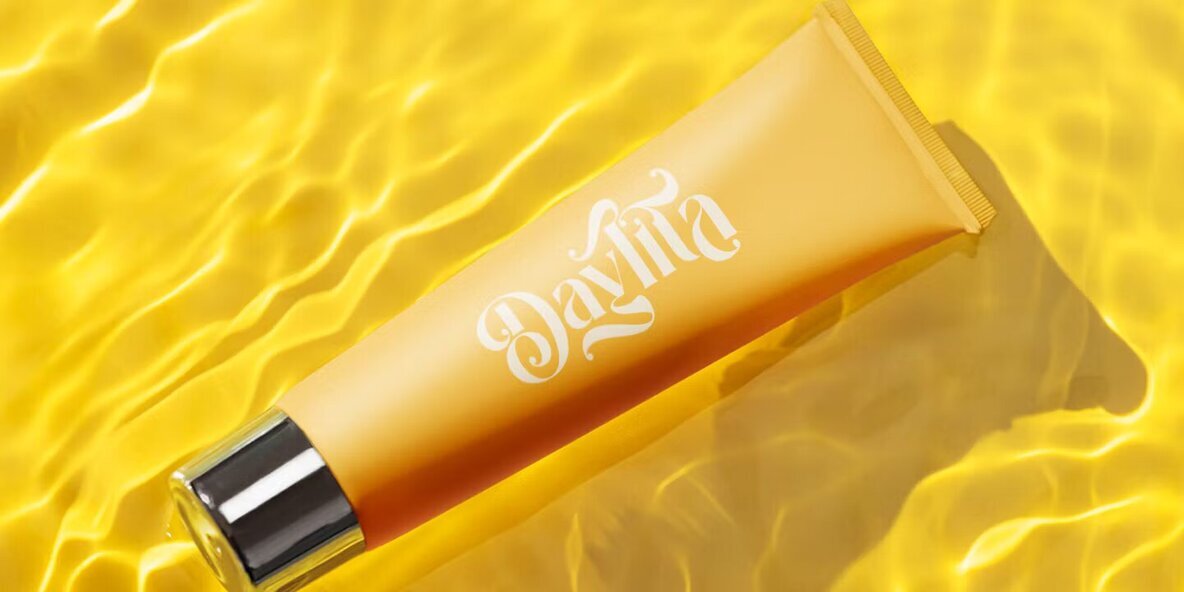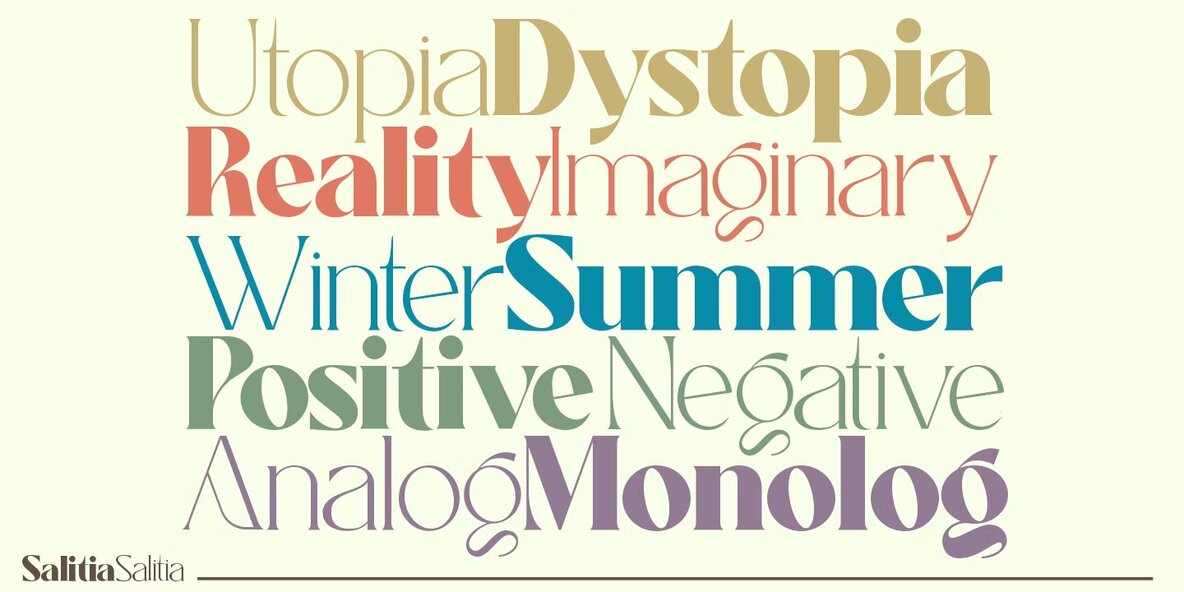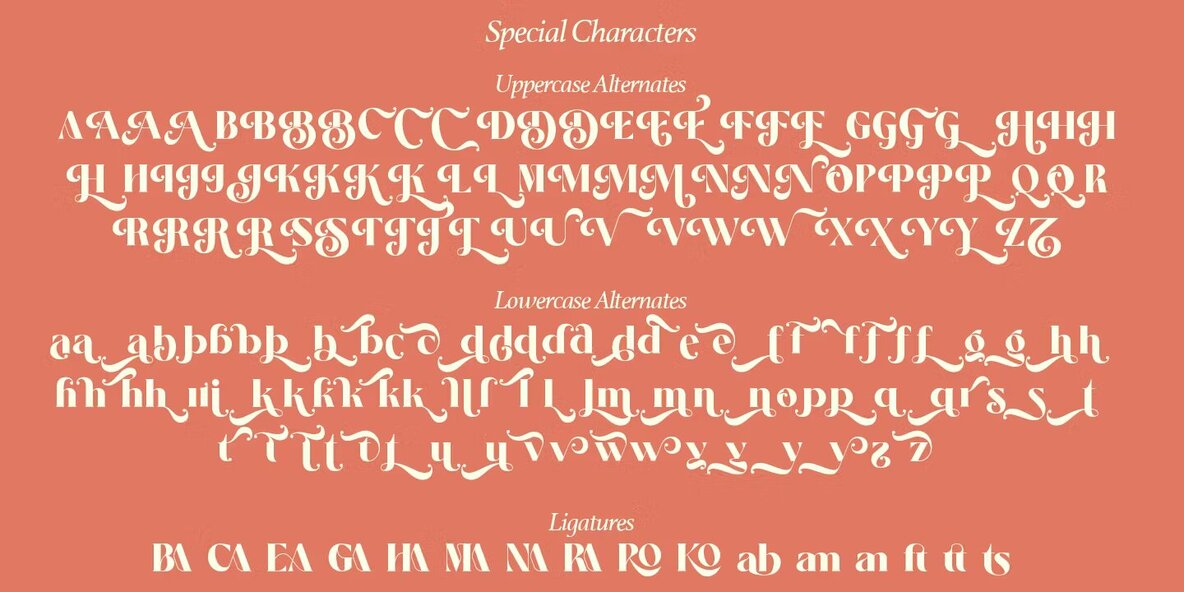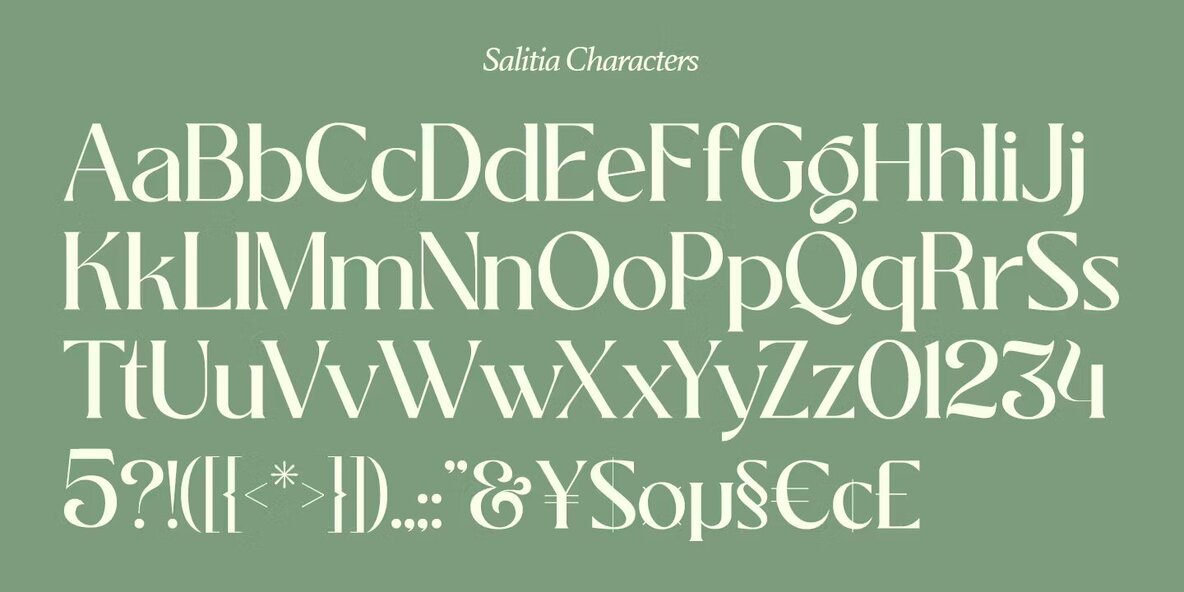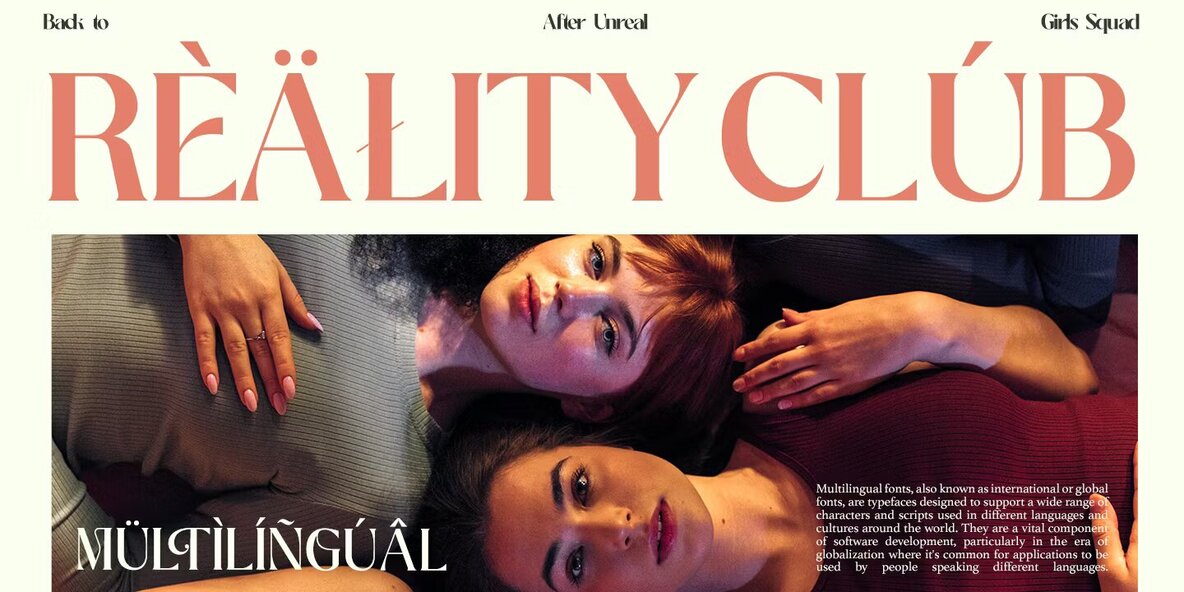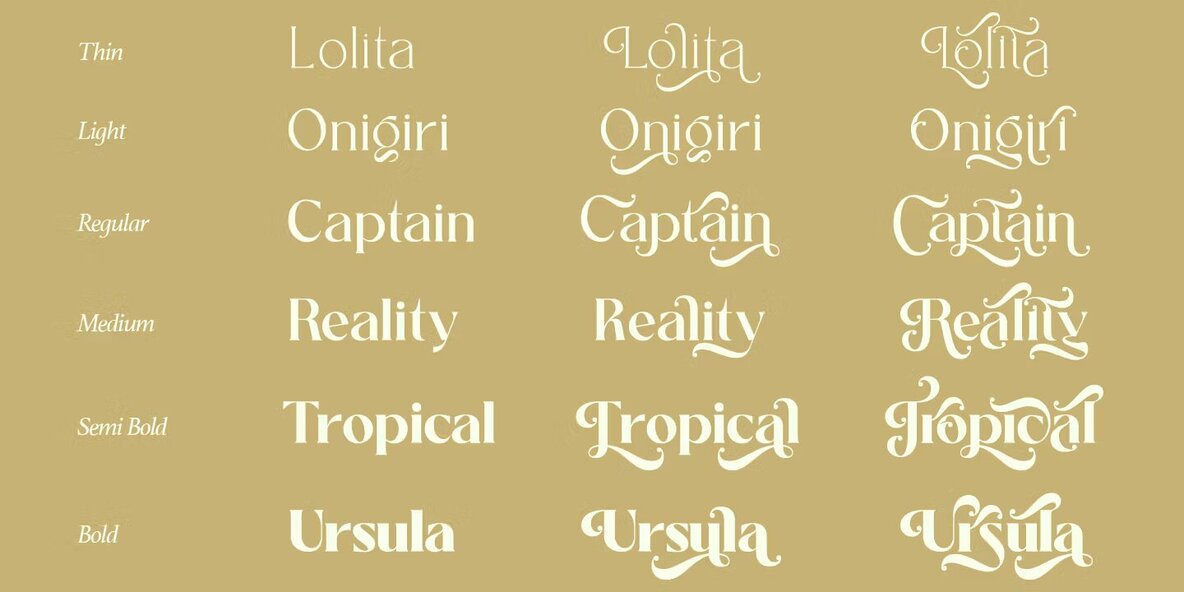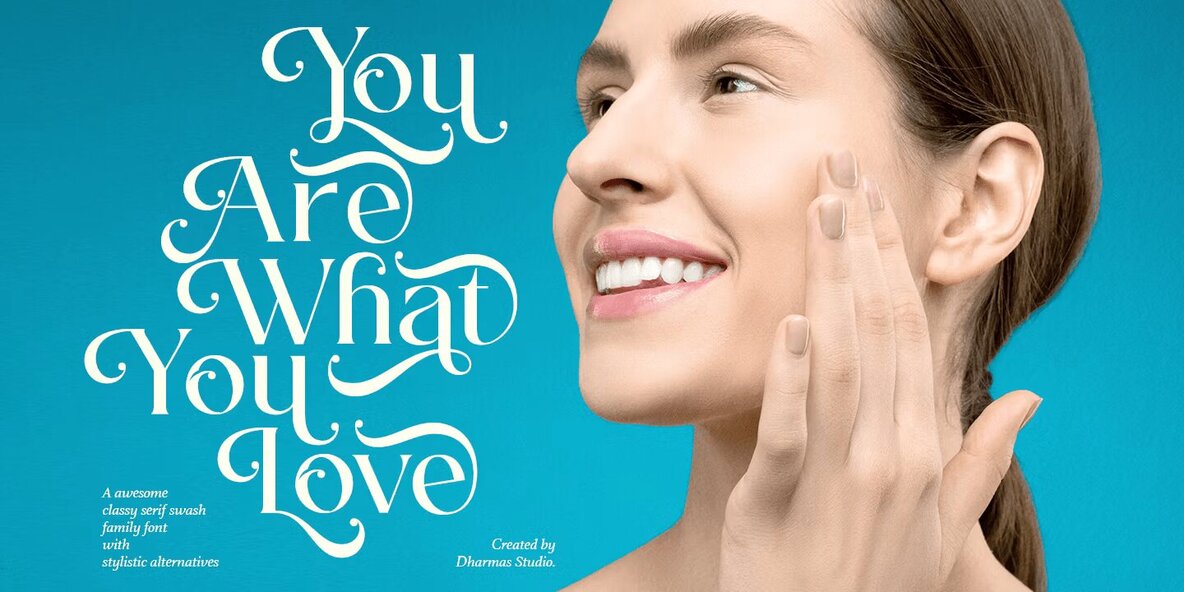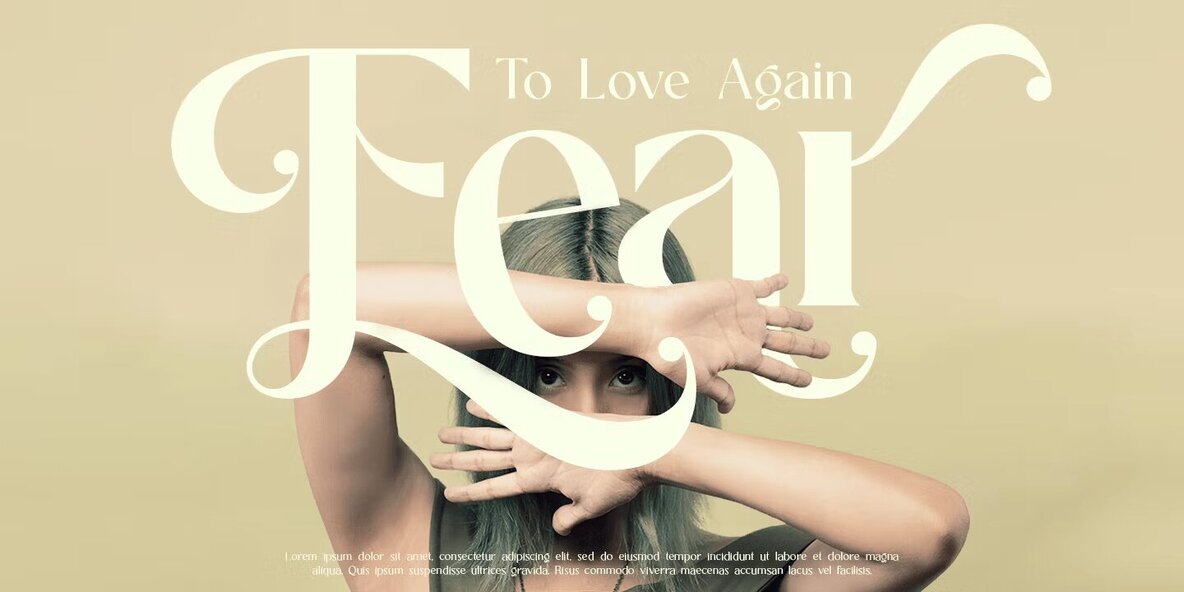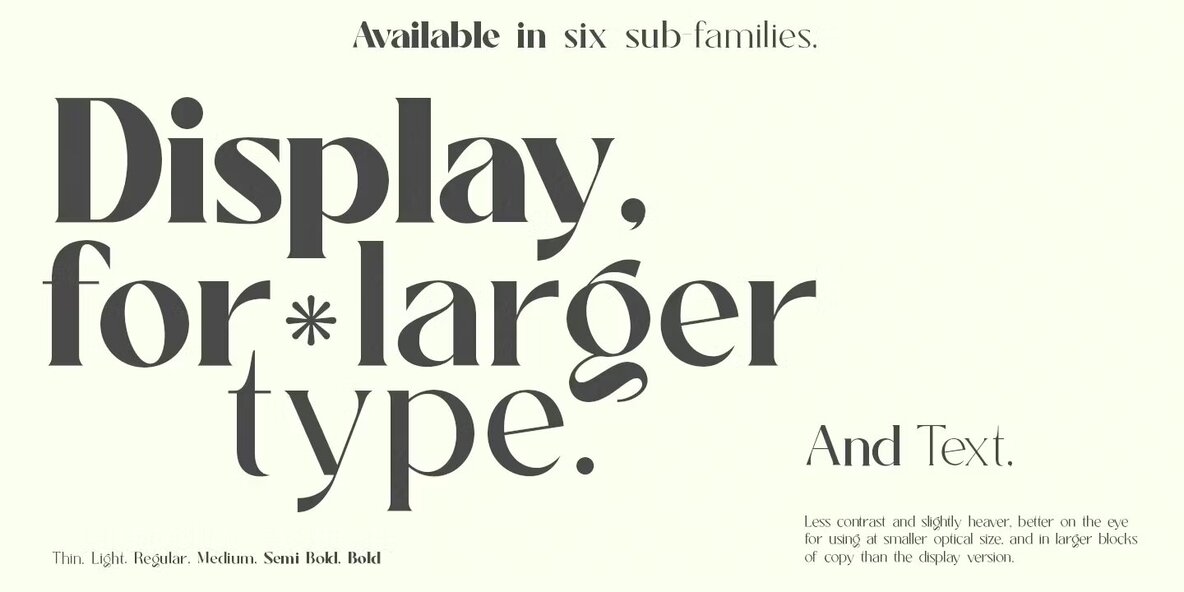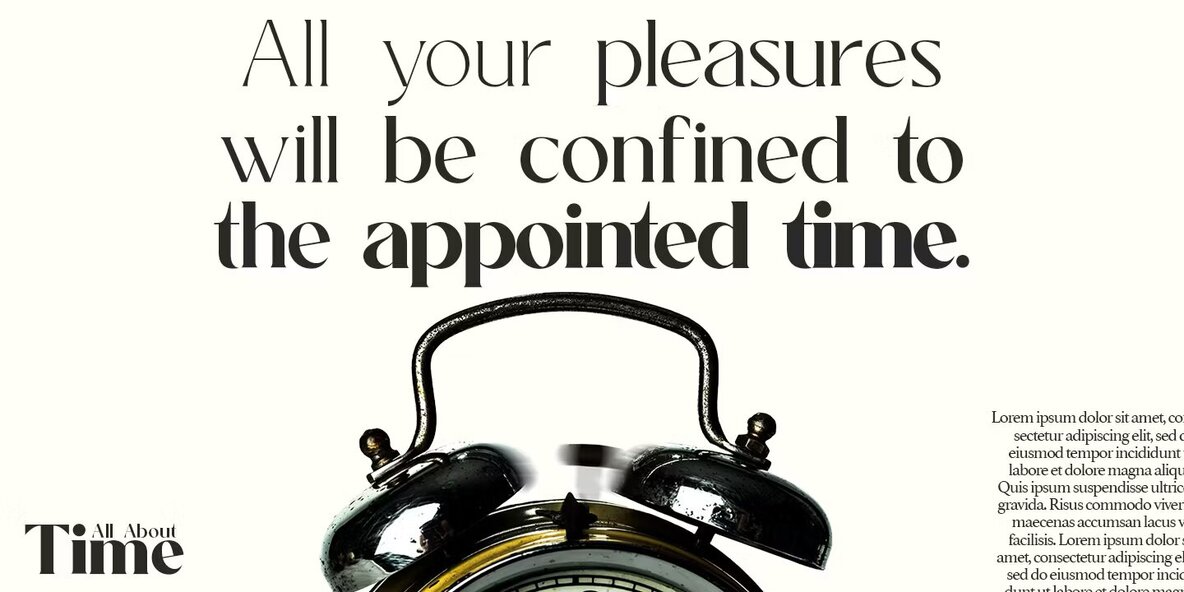
Salitia Font
Introducing Salitia – A brand-new serif with a complete dot swash! Salitia is a modern serif family featuring tightly-spaced serifs reminiscent of the 80s and 90s, making a stylish comeback. We aimed to create the perfect font for you too! With 6 style families (Thin to Black), unique ligatures and beautiful alternates this font suitable for short text and long word such as headlines, logos, UI design, magazine text, product descriptions, and other design needs What's Included? Language Support: Danish, English, Estonian, Filipino, Finnish, French, Friulian, Galician, German, Gusii, Indonesian, Irish, Italian, Luxembourgish, Norwegian Bokmål, Norwegian Nynorsk, Nyankole, Oromo, Portuguese, Romansh, Rombo, Spanish, Swedish, Swiss-German, Uzbek (Latin)